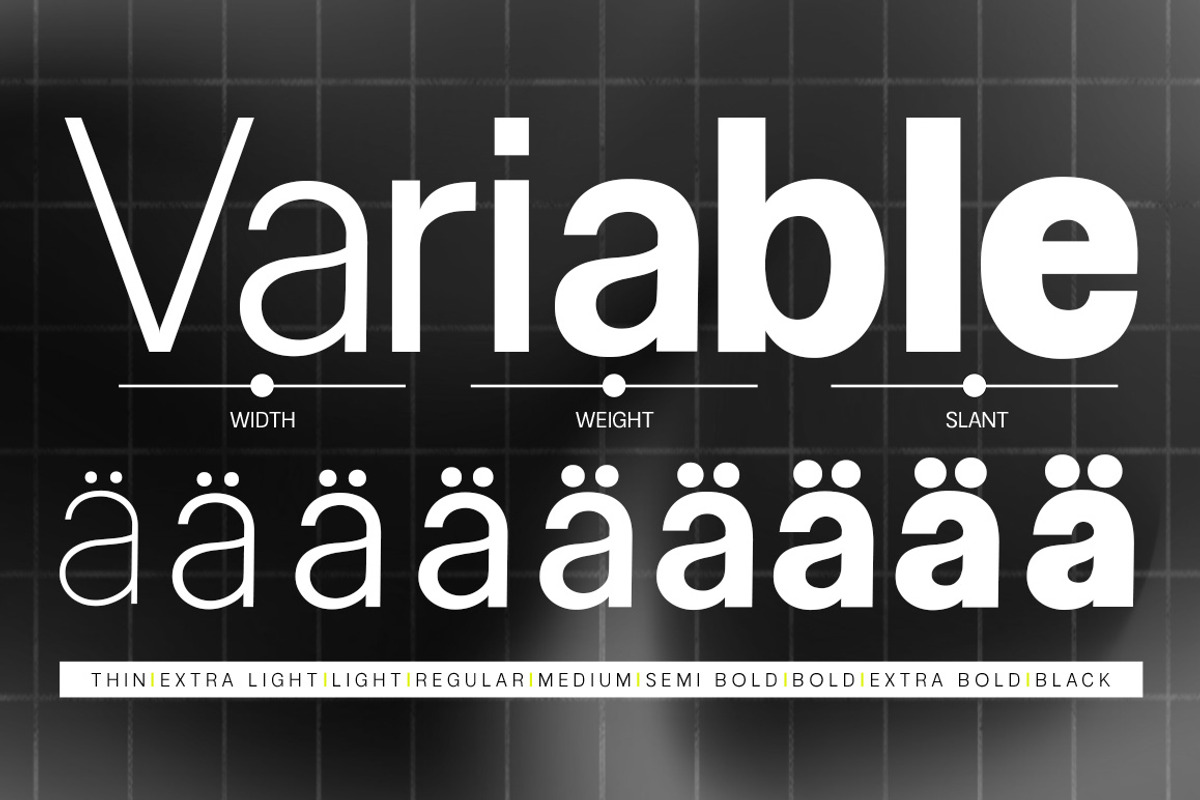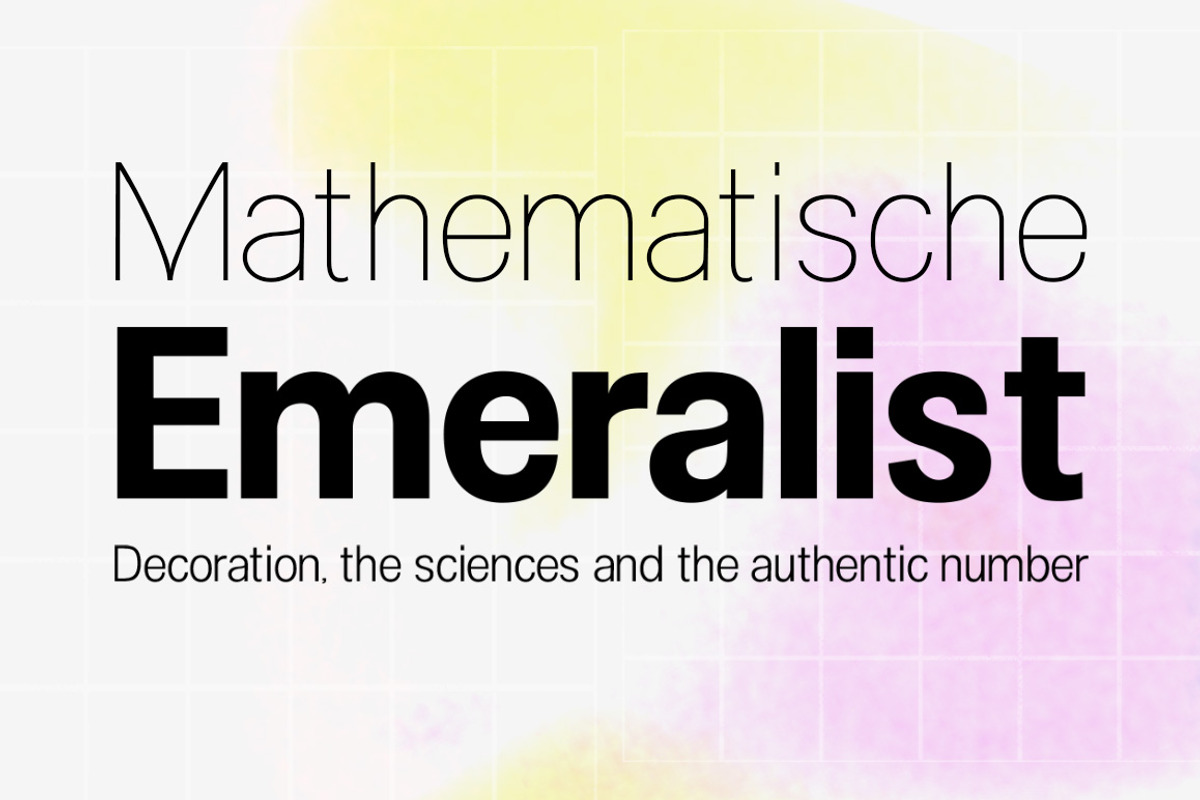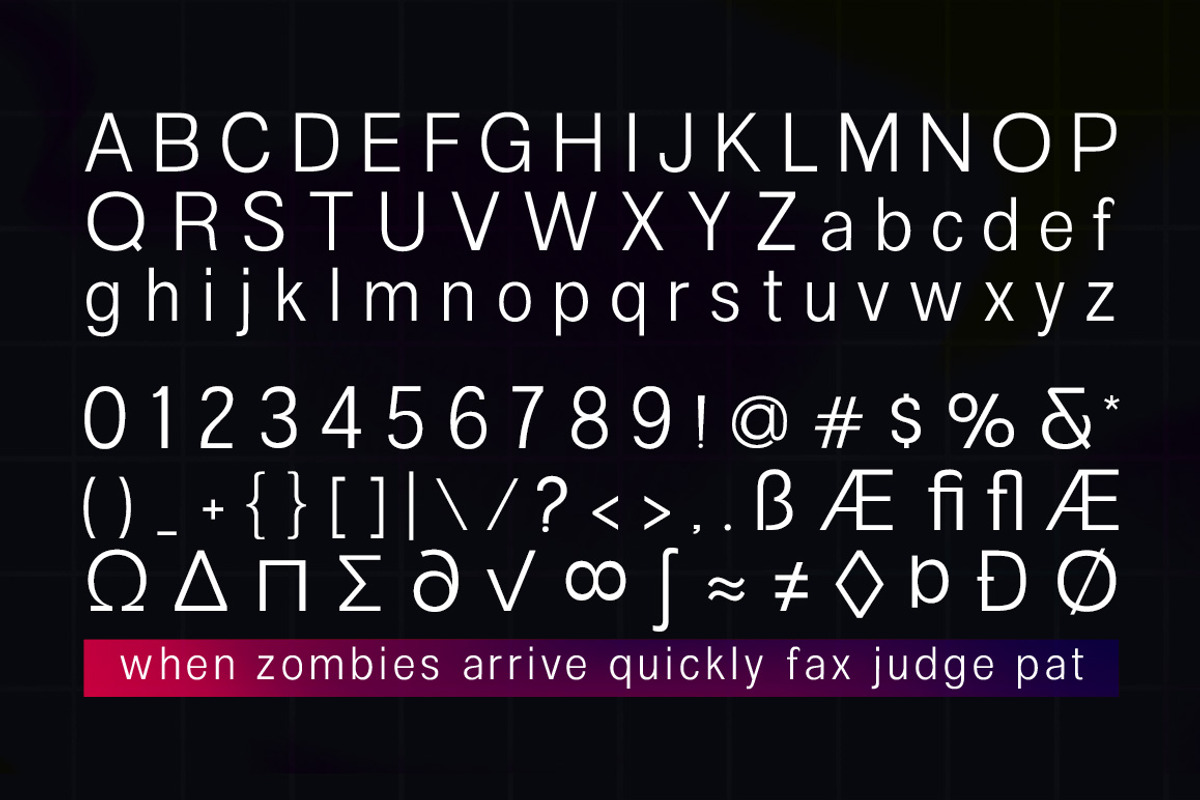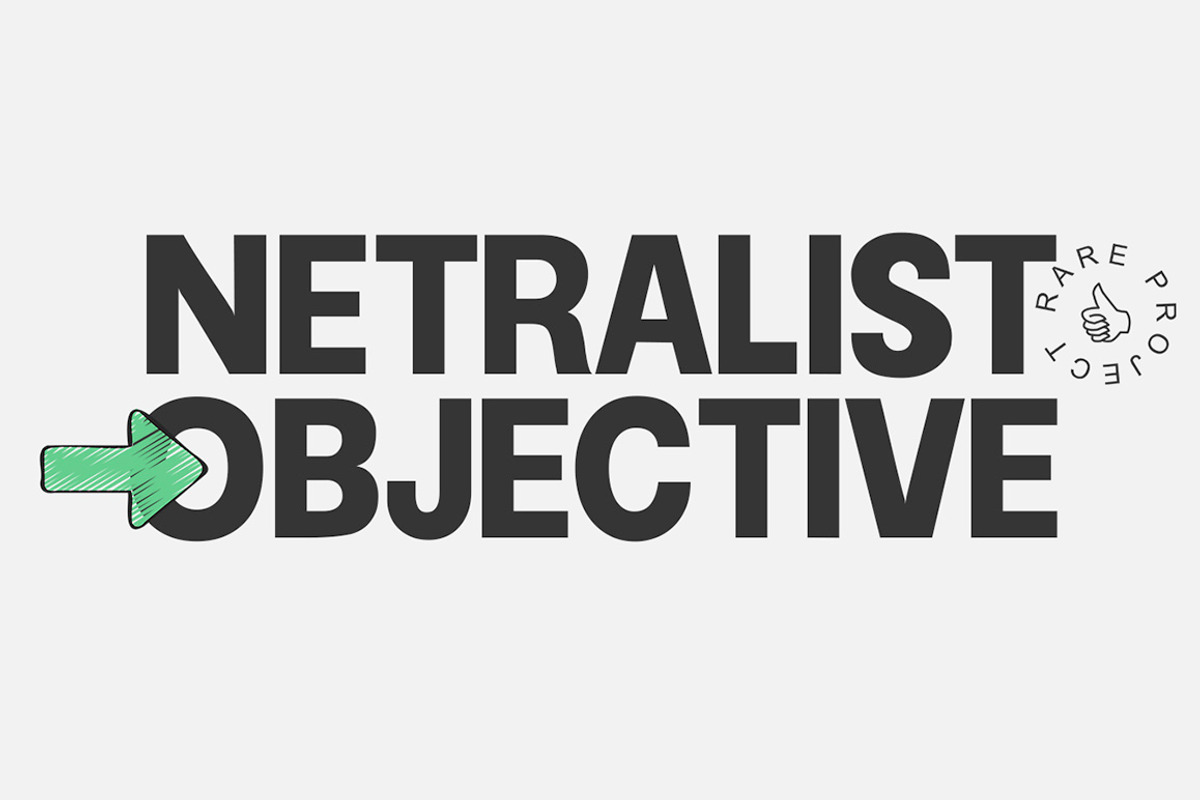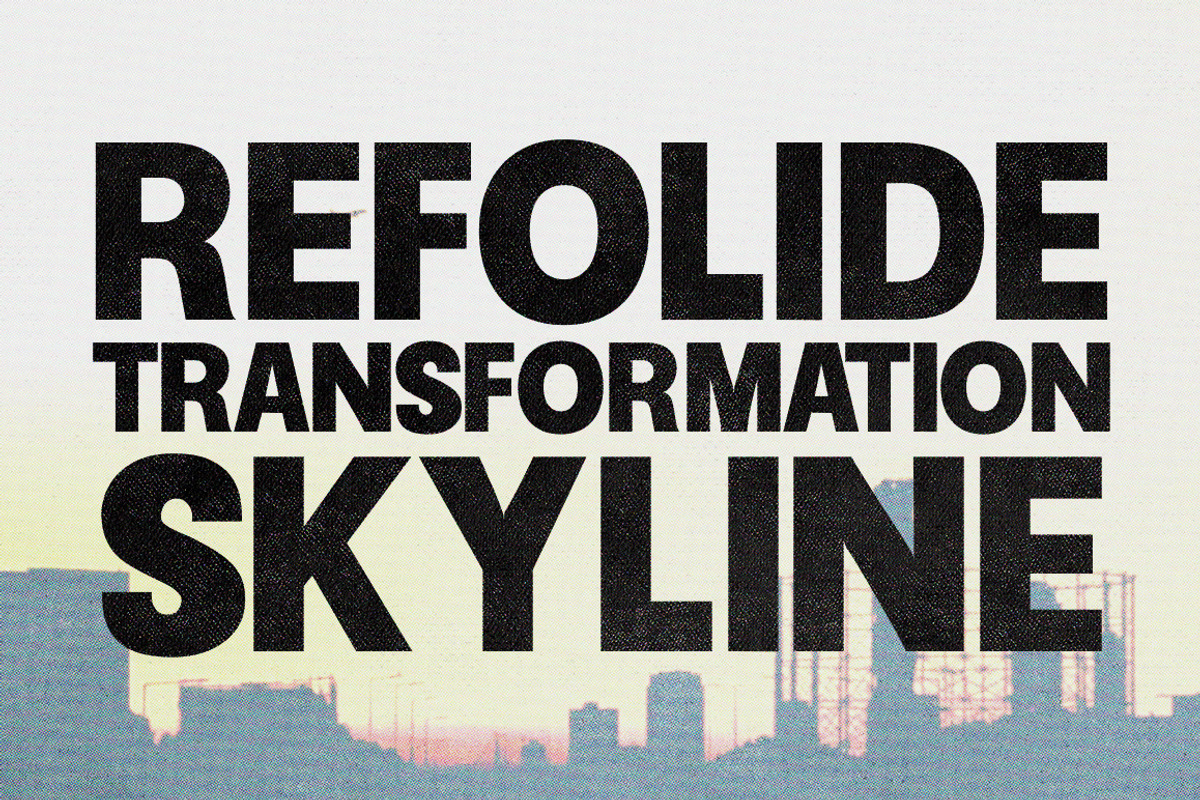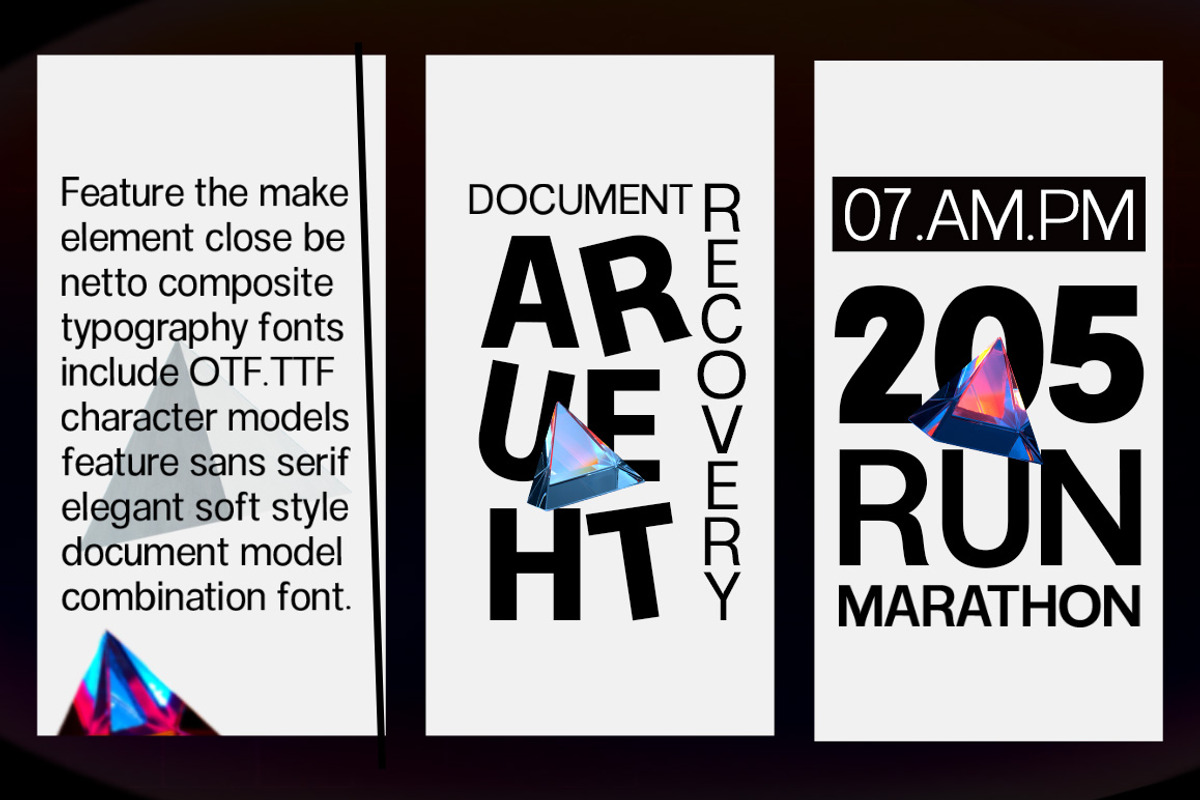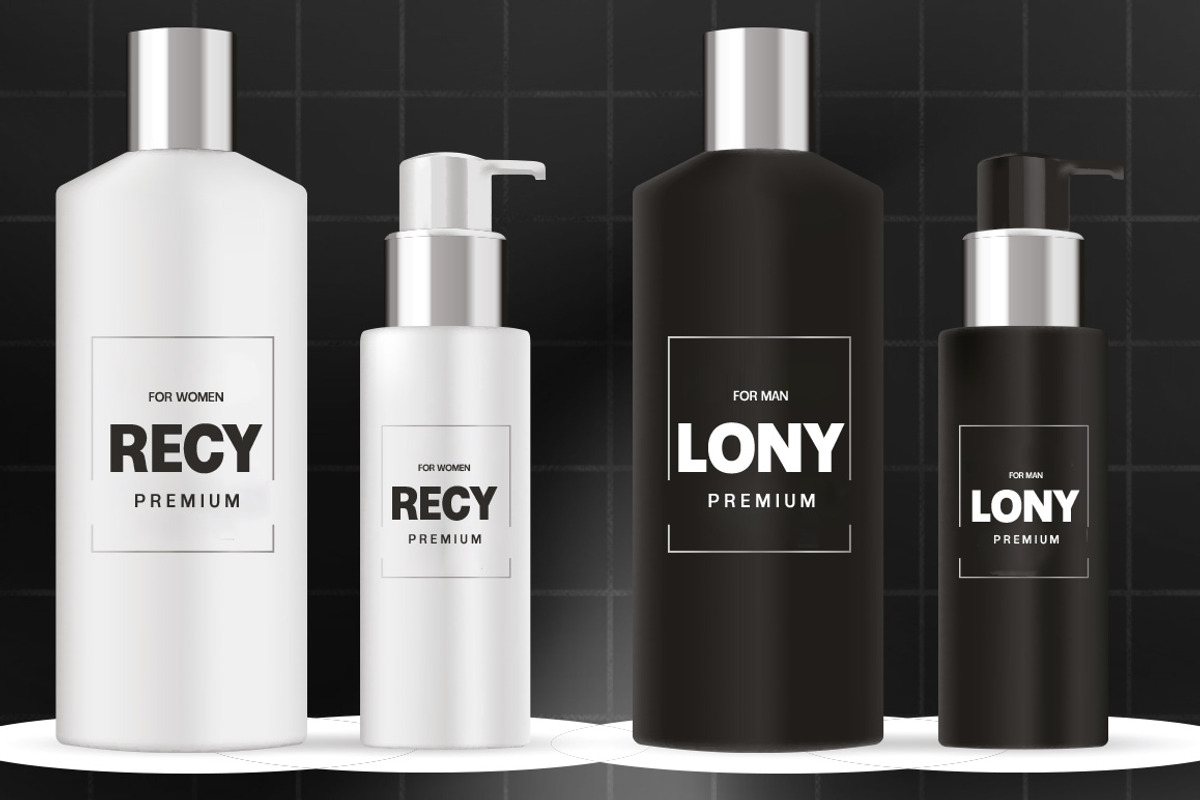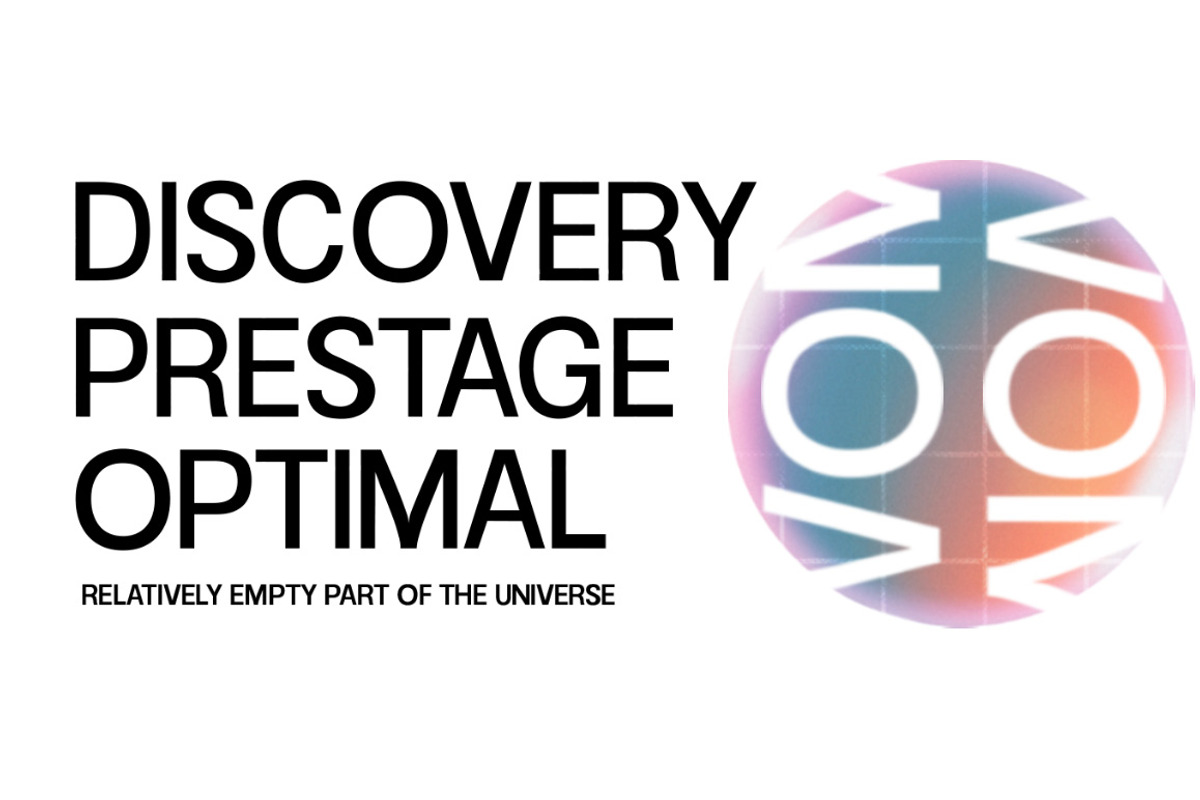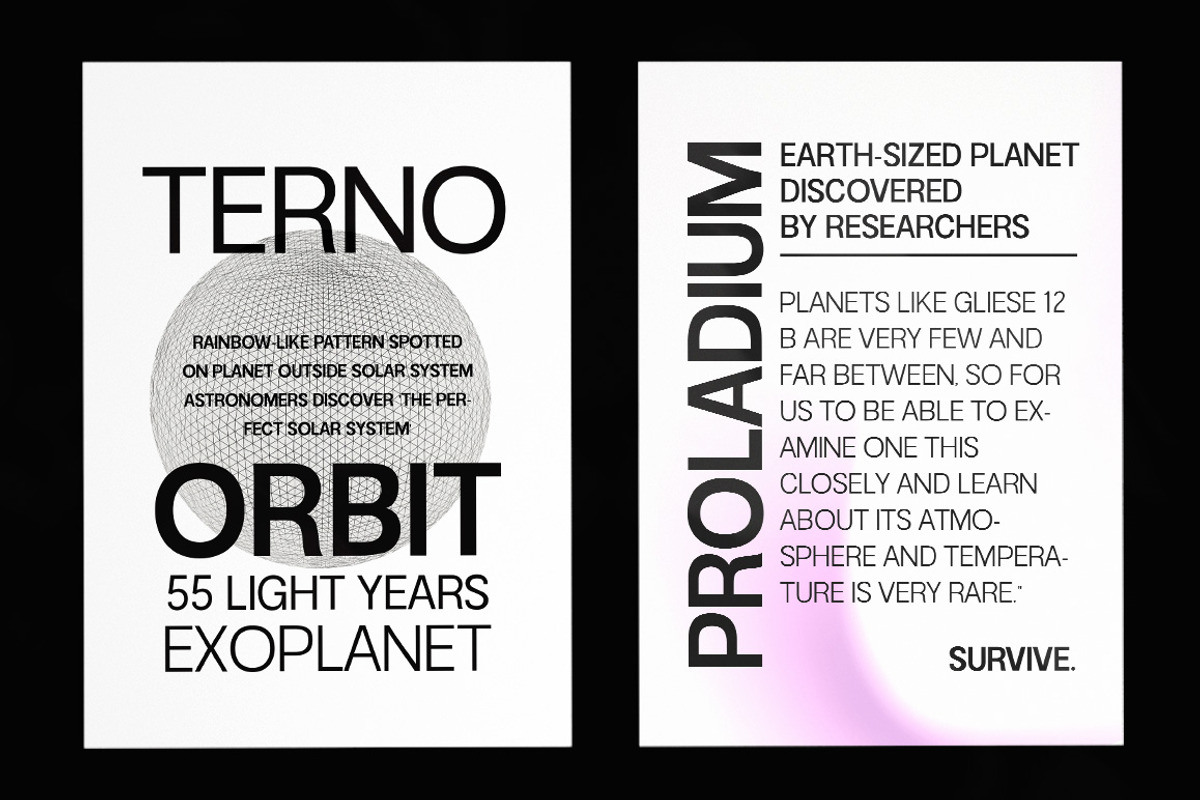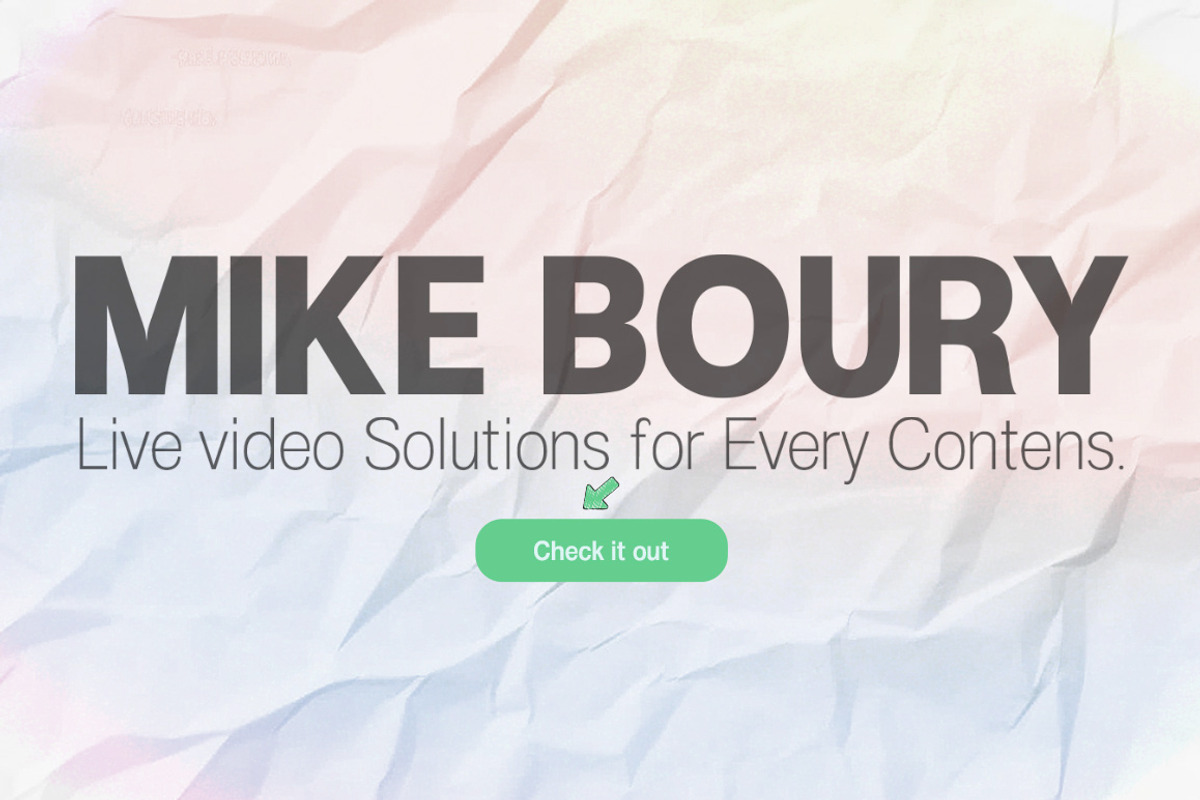
Naxotek (Variable)
Naxotek is a family of skilled and authentic sans serif fonts. Featuring matching thicknesses, and nine italics, each offering something different and all created to work in harmony.
With a minimal design, low contrast, large x-height, and thin black thickness (with italics), Naxotek is perfect as a primary text and display font for branding, advertising, packaging, headlines, magazines, websites, logo designs, and much more.
18 styles: 9 matching uprights and tilts. Latin based language. Includes Variable Fonts.